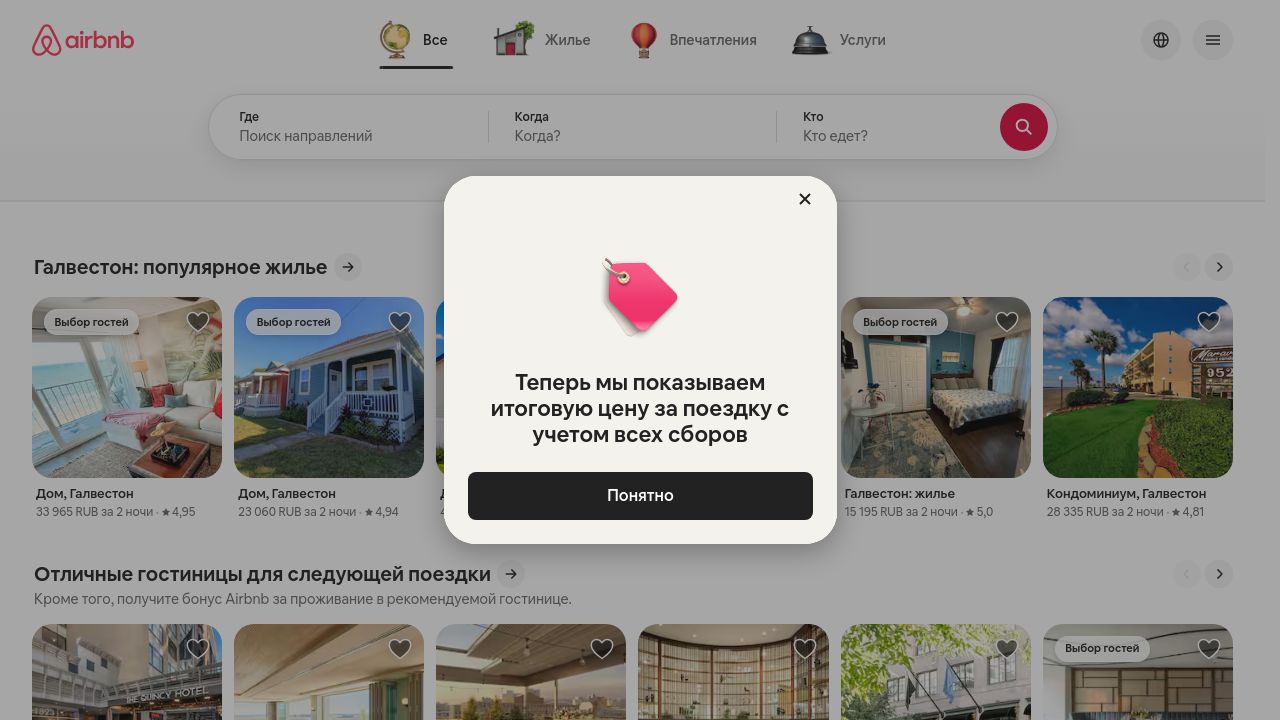
Airbnb.ru, a platform for vacation rentals and unique experiences, utilizes the custom font Airbnb Cereal VF to convey a friendly and approachable brand identity. This choice reflects the company's focus on community and connection within the travel industry. The fallback fonts like Roboto and Helvetica Neue provide versatility while maintaining readability across different devices, ensuring users have a seamless experience while exploring millions of listings worldwide.
Airbnb.ru primarily uses the custom font Airbnb Cereal VF, along with fallback options like Roboto, Helvetica Neue, Consolas, Menlo, and Liberation Mono.
Airbnb Cereal VF is a custom font created specifically for Airbnb. It is not available for public download, but similar styles can be found in other fonts like Circular and Roboto.
Airbnb Cereal VF features a unique design that emphasizes warmth and friendliness, differentiating it from more traditional fonts like Helvetica Neue and Roboto, which are more neutral and functional.
Currently, Airbnb Cereal VF is available in a single weight of 400. This consistency helps maintain a cohesive look across the Airbnb brand.